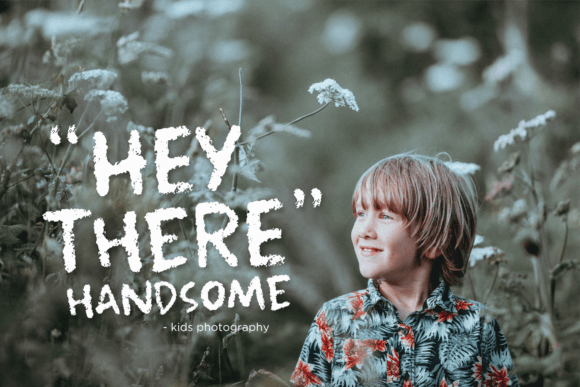
Creamy Chalk Font
Creamy Chalk is a fun and fresh display font. Creamy Chalk is perfect for product packaging, branding projects, megazines, social media posts, wedding designs, and more!